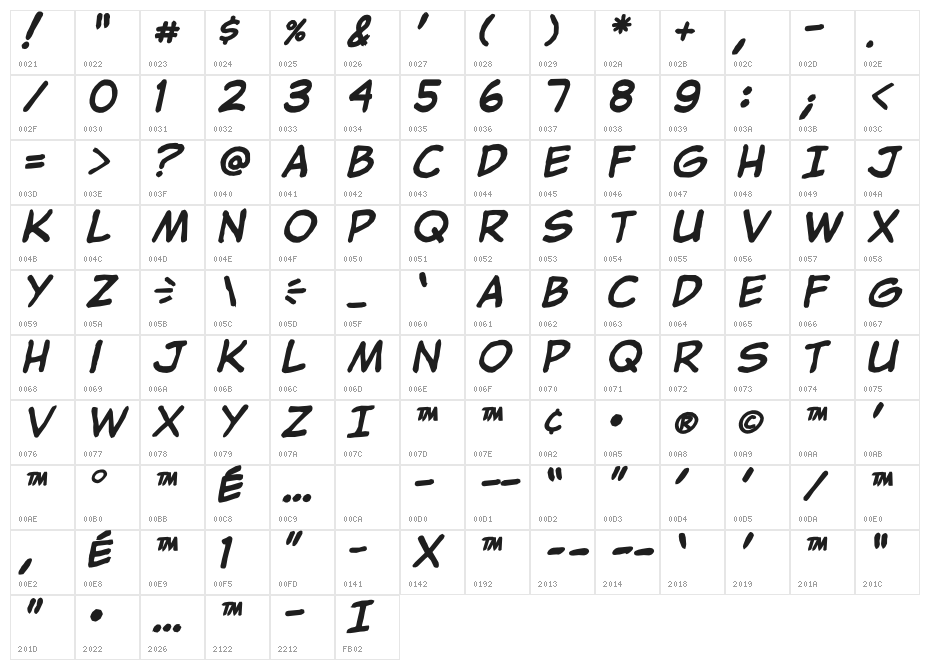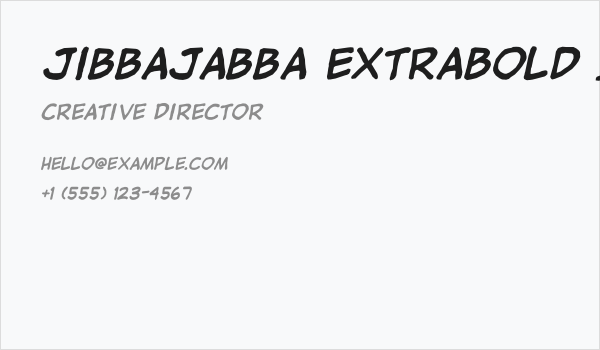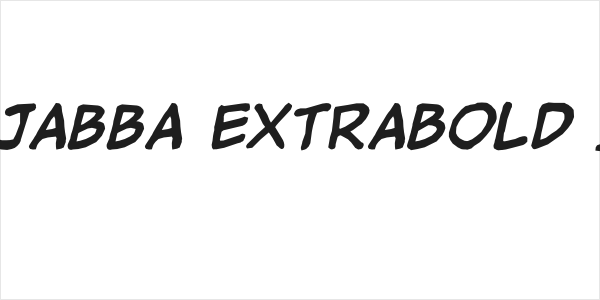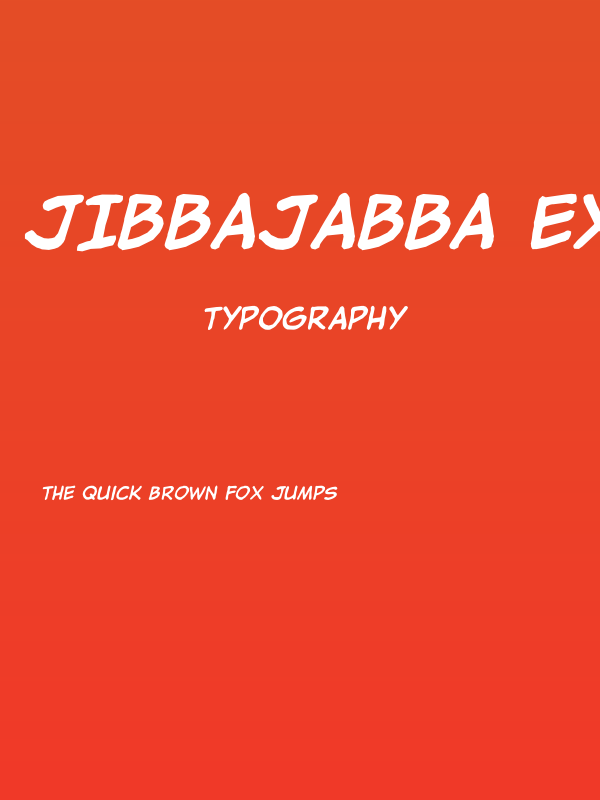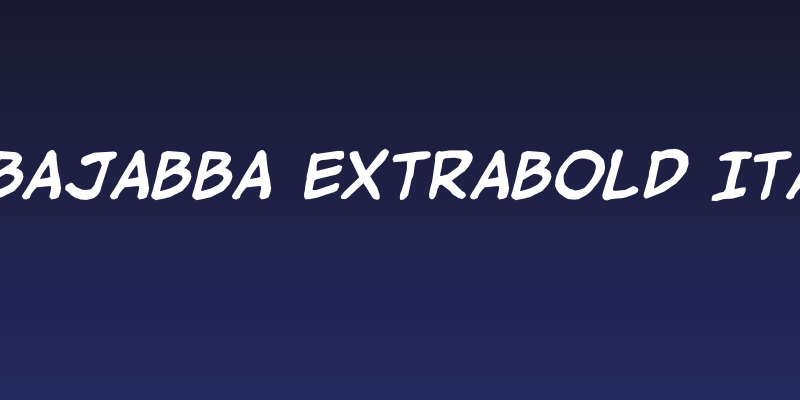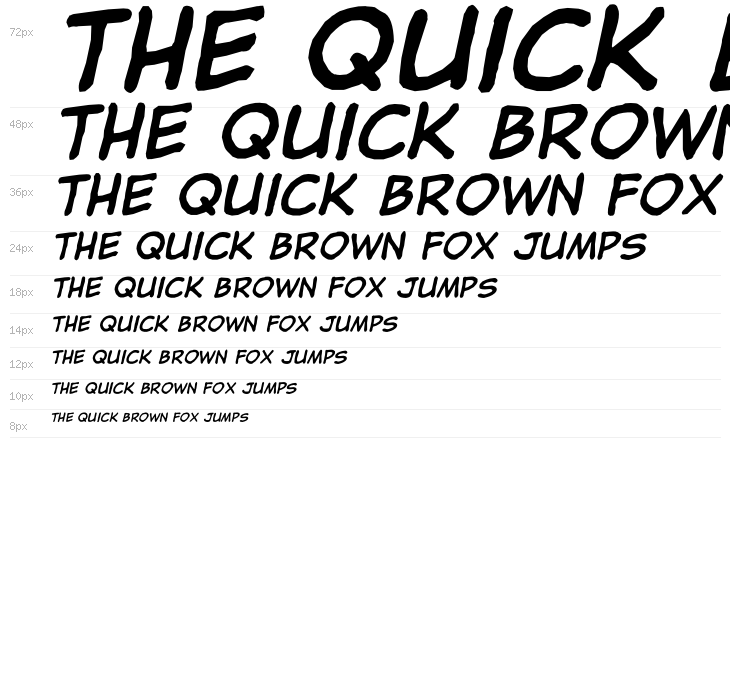
jibbajabba ExtraBold Italic Font
jibbajabba ExtraBold Italic Description
This font features a bold and dynamic style with a playful, handwritten appearance. The characters are slanted, giving an italicized effect that adds movement and energy to the text. The strokes are thick and consistent, contributing to its boldness, while the rounded edges soften the overall look. The font maintains a casual and approachable feel, making it suitable for informal and creative projects. The character spacing is relatively tight, which enhances the compact and cohesive appearance of the text. The numbers and special characters are designed to match the lively and bold style of the letters, ensuring a uniform look across all elements.
| Overall Style | Playful, Energetic |
| Proposed Projects | Ideal for creative projects such as posters, invitations, greeting cards, and branding materials that require a fun and energetic touch. |